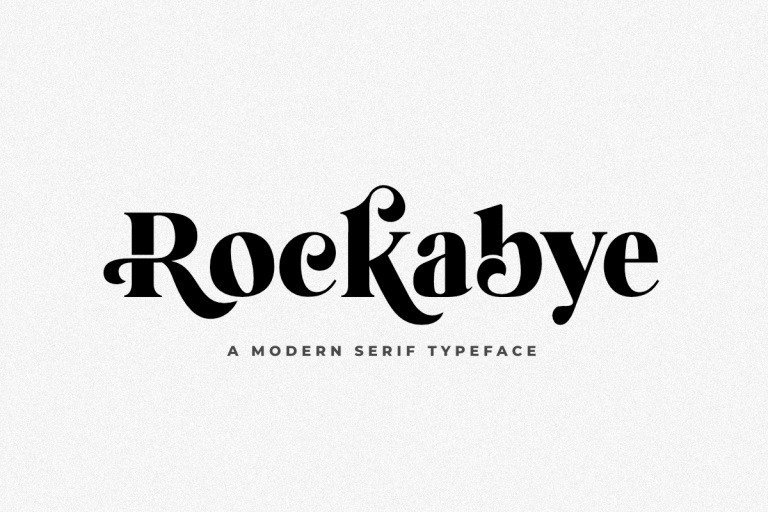
Rockabye Typeface
Rockabye Modern Serif Typeface is a stylish vintage font with a touch of modernity. It looks amazing at display sizes and is easily readable in text size. Rockabye comes with access to your Open Type features, large selection of alternate glyphs and ligatures. Rockabye is made in a retro style with very few nodes and is very precise.
Rockabye is a display font made mainly for headlines, titles, and other short texts and is well-suited for advertising, vintage mood board, branding, logotypes, packaging, titles, wedding, business card, t-shirt, quote, editorial design and modern and vintage design.